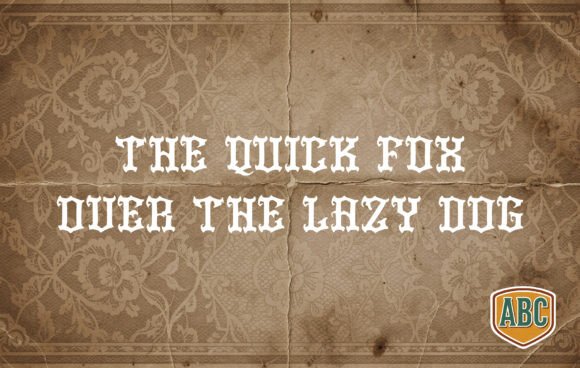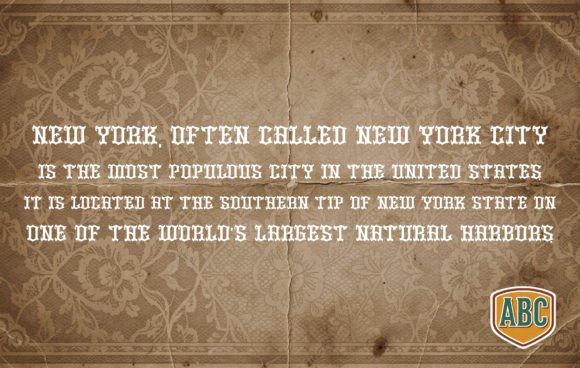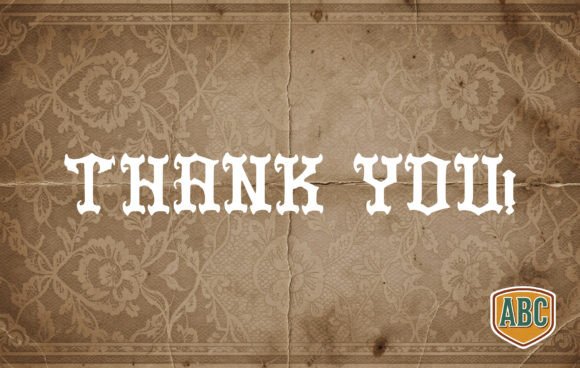
Introduction to Old Lace Font
Step back in time with the OLD LACE font, a rugged yet ornate Western-inspired display typeface that commands authority and nostalgia.
This OLD LACE typeface features classic slab-serif foundations with decorative “spurs” and a weathered, vintage texture that feels like a relic from a Victorian-era print shop The heavy-duty presence of the OLD LACE font makes it an incredible choice for brewery branding, barbershop logos, and old-world packaging.
Key Features of Old Lace Font
Why Choose Old Lace Font?